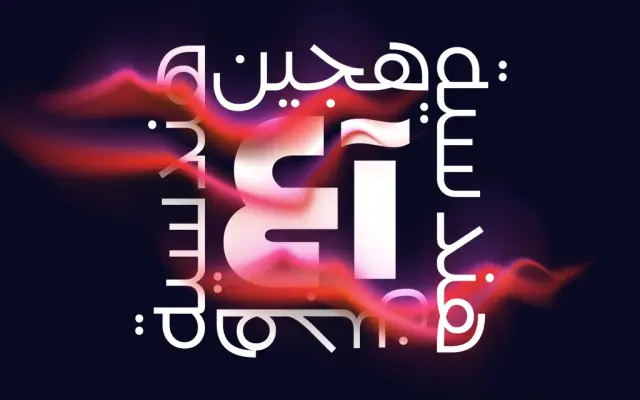
A dual-family geometric sans spanning Latin, Cyrillic and Arabic, split between a more purely geometric cut and a constructed companion.
Tosh comes in two related families: Tosh A, which follows a stricter geometric logic, and Tosh B, which takes a more constructed approach while sharing the same underlying spirit. Both run from Thin to Black across six static weights and are also available as variable fonts. The family's three-script coverage across Latin, Cyrillic and Arabic is designed to keep a consistent visual voice across writing systems.
Tosh is explicitly described as blending geometric forms with an organic spirit, with Tosh A leaning geometric and Tosh B taking a more constructed approach, firmly placing it in the geometric sans category.